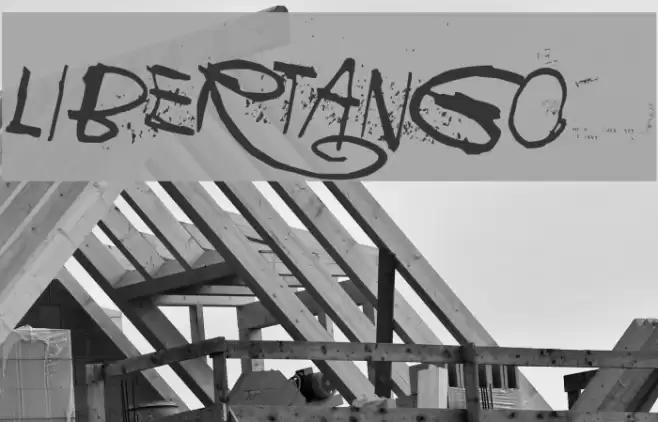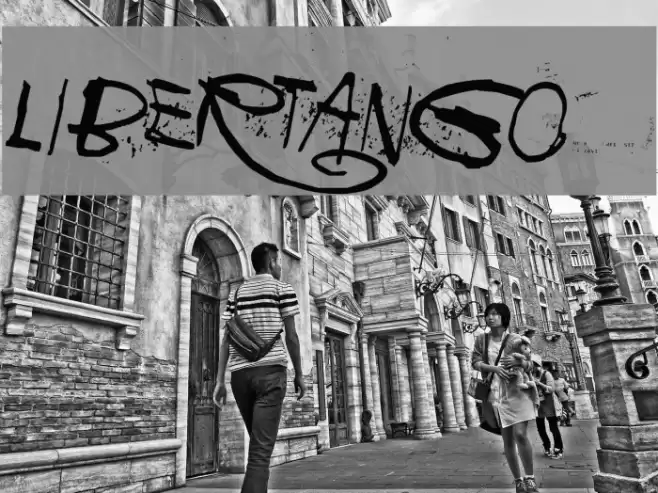
Libertango Font
Libertango Description
This font exhibits a dynamic and expressive style, characterized by its bold, brush-like strokes and irregular forms. The letters have a hand-drawn appearance, with varying thickness and a sense of movement that suggests energy and spontaneity. The uppercase and lowercase letters maintain a consistent aesthetic, with some characters featuring unique flourishes and loops. The numbers and special characters follow the same artistic approach, adding to the overall cohesive look. This font's distinctive style makes it ideal for projects that require a strong visual impact.
A bold, expressive font with a hand-drawn, brush-like style from Uncategorized fonts.
- Proposed Projects: Ideal for artistic projects, posters, album covers, and branding that require a bold and dynamic visual impact.
- Overall Style: Modern, Artistic
- Use Case: Headlines, Posters, Artistic Branding